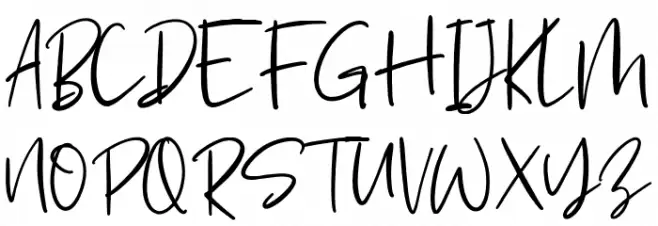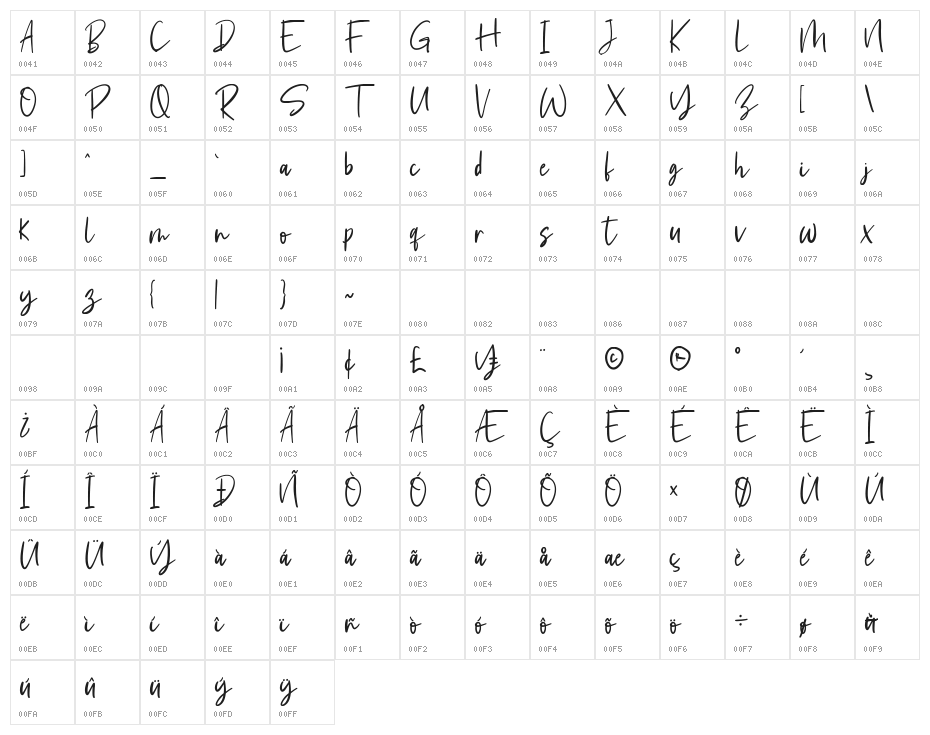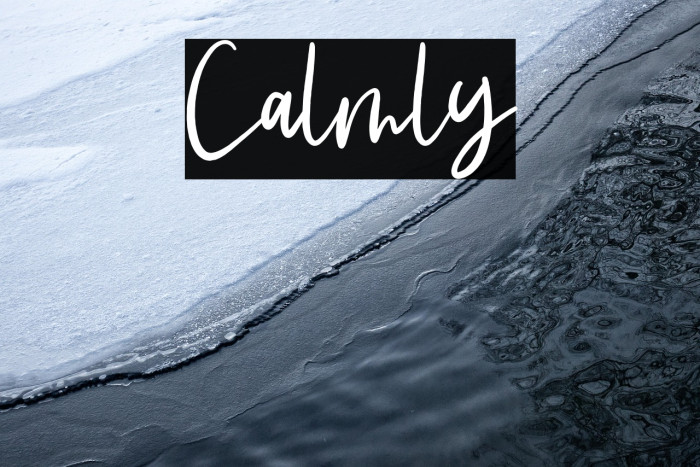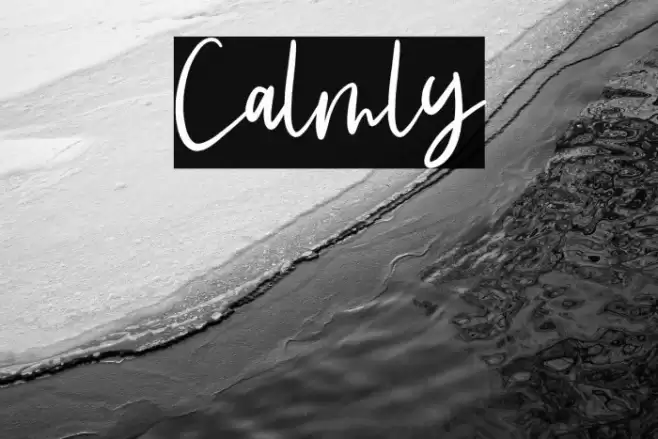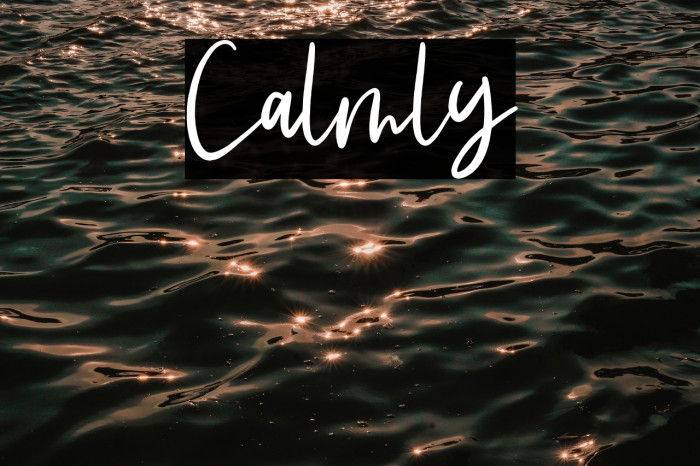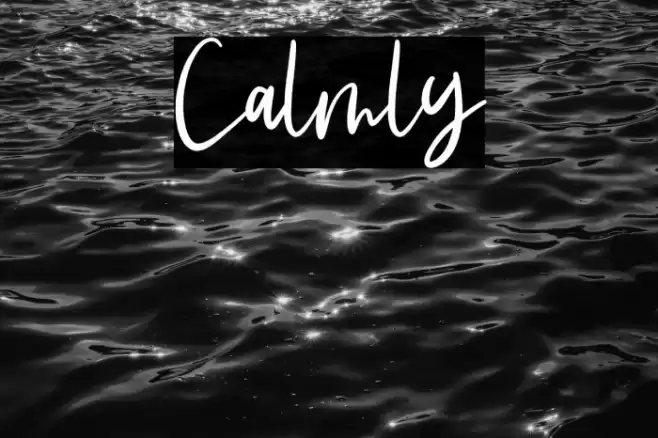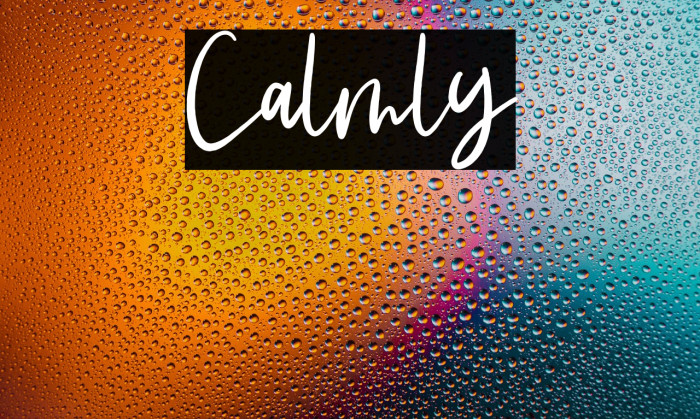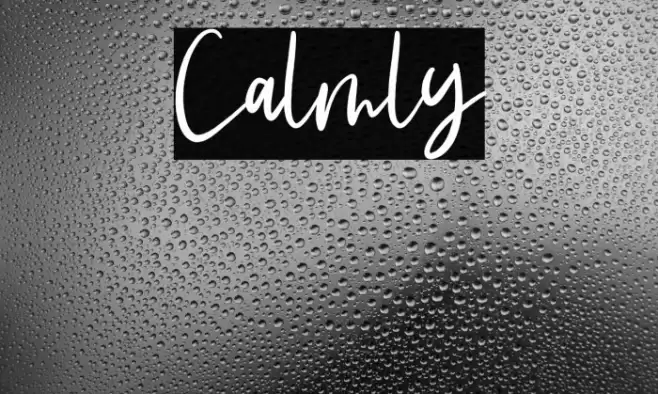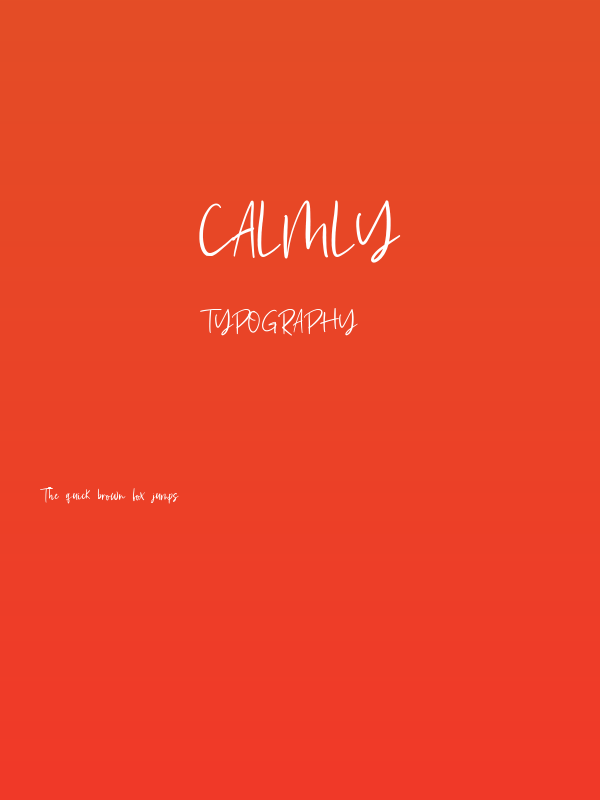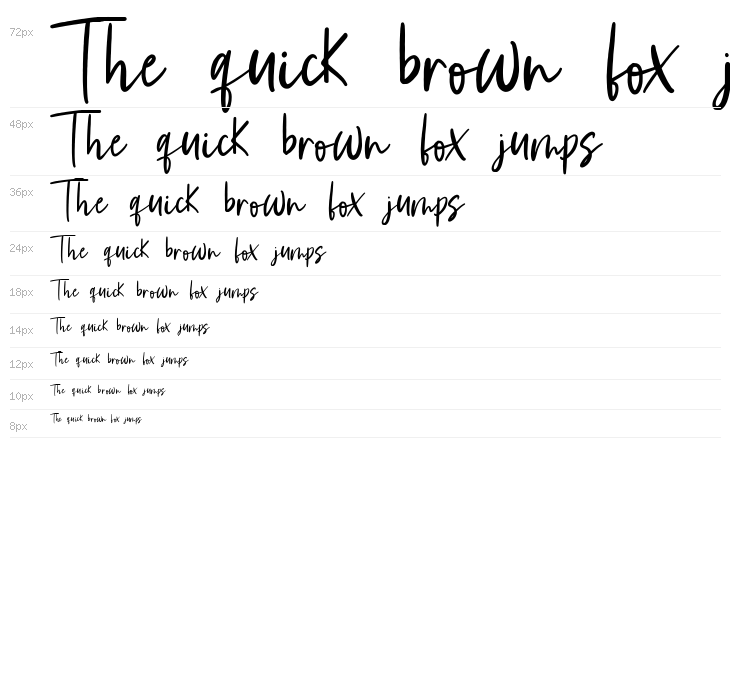
Calmly Font
Calmly Description
This font exudes a casual and approachable vibe, characterized by its handwritten style. The letters are fluid and slightly irregular, giving it a personal touch that mimics natural handwriting. The strokes are consistent in thickness, providing a balanced and harmonious appearance. The uppercase and lowercase letters maintain a cohesive style, with a slight slant that adds to its informal charm. The font is versatile, suitable for projects that require a friendly and inviting tone. Its legibility is maintained even with the playful and dynamic letterforms, making it ideal for various creative applications.
| Proposed Projects | Ideal for greeting cards, personal branding, social media graphics, and informal invitations. |